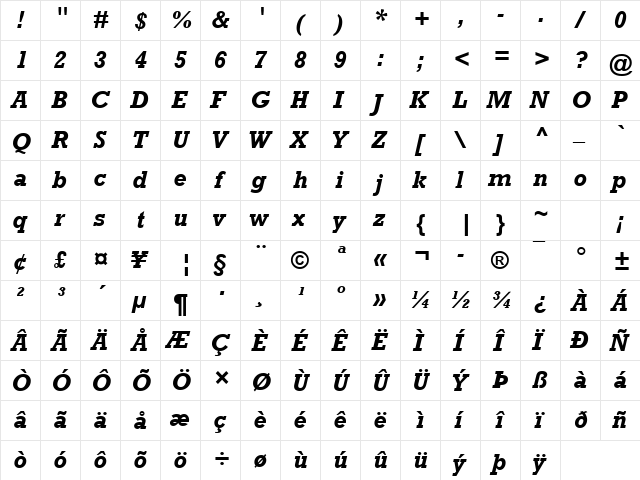
Rockwell Bold Italic
Design Context for Rockwell Typeface
Rockwell is a composed and adaptable typeface that performs quietly and consistently across a wide range of design contexts. Its italic angle brings a sense of urgency and motion to the letterforms. The heavy weight commands attention and anchors typographic hierarchies.
Pro Tip: Try Rockwell for annotation and caption copy alongside an upright companion — the contrast in angle creates a dynamic but ordered typographic system.